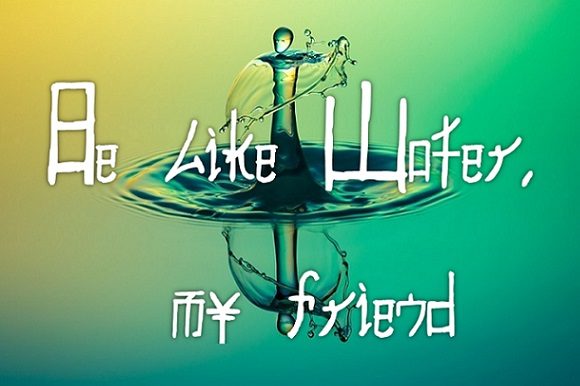
HomeScript FontsFast Monk Font Script Fonts Fast Monk Font FacebookXPinterestWhatsApp Fast Monk Font Poster 2 About Fast Monk Font Inspired by Chinese characters, fast Monk is a string and bold handwritten font with a unique feel! DOWNLOAD NOW People also explored Roswita Font Yesta Font Suhainora Font Jack and Zeky Font Sky Path Font Farmers Daughter Font Pulpo Rust Snowflake Font Signatype Font 410 0 TagsFast Monk Font Previous articleBinangkit FontNext articleNorthern Stars Spaced Font LEAVE A REPLY Cancel reply Comment: Please enter your comment! Name:* Please enter your name here Email:* You have entered an incorrect email address! Please enter your email address here Website: Save my name, email, and website in this browser for the next time I comment. Personal Use Free Glosery Personal Use Free Read more about this font Browie Personal Use Free Read more about this font Retro Poster Personal Use Free Read more about this font Sushi Stroke Personal Use Free Read more about this font BLOG Using Fonts in Digital Marketing: Tips to Strengthen Your Brand Identity In the realm of digital marketing, every visual element plays a crucial role in shaping a brand's identity, and fonts are no exception. The... Top 10 Handwritten Fonts That Elevate Your Designs Exploring Font Trends Where to Buy American Fonts Online in 2024